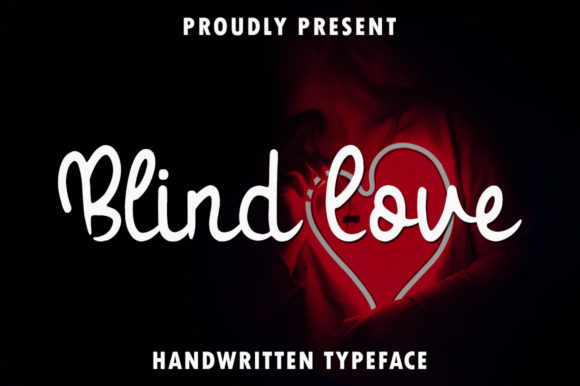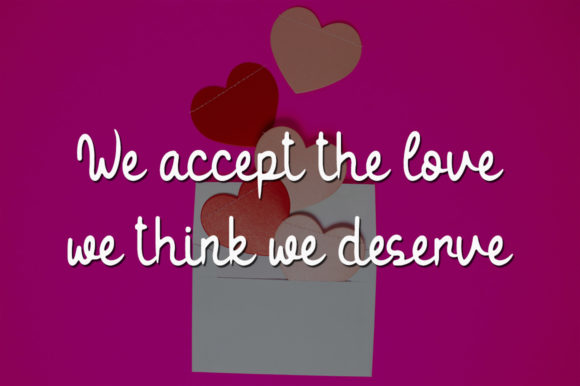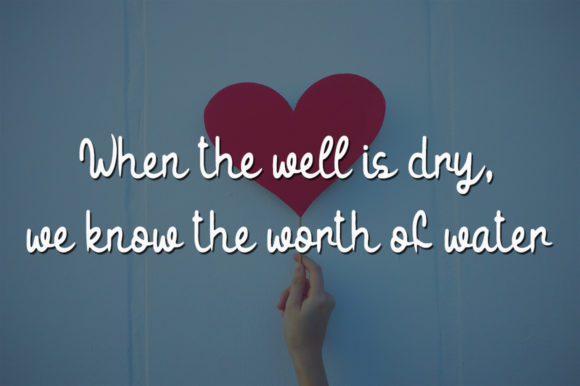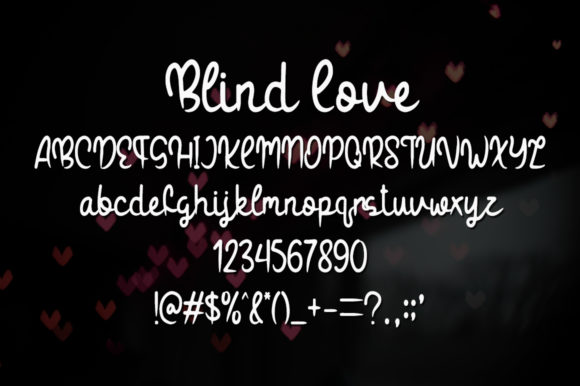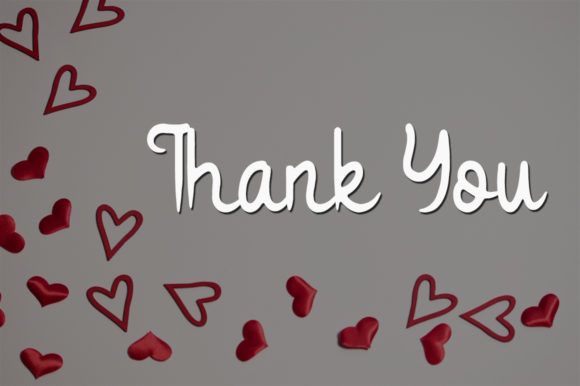
Blind Love Font
About Blind Love Font
Blind Love is a casual script font that brings a relaxed and effortless vibe to your designs. With its fluid and organic letterforms, this font is perfect for creating original and outstanding designs that stand out from the crowd.
The casual nature of Blind Love makes it a versatile choice for various design projects. Whether you’re working on branding, packaging, social media graphics, invitations, or any other creative endeavor, this font adds a touch of informality and approachability to your designs. It is particularly well-suited for projects that aim to evoke a sense of comfort, warmth, and authenticity.
The flowing and connected letterforms of Blind Love create a natural and hand-drawn appearance. Each character seamlessly connects to the next, giving the impression of effortless handwriting. This adds a sense of fluidity and rhythm to your text, making it visually appealing and engaging.
Blind Love allows you to infuse your designs with personality and character. It offers a range of alternate characters, ligatures, and swashes that you can easily access to add variation and flair to your text. These stylistic options enable you to create unique and customized designs that reflect your own artistic vision.
In addition to its aesthetic appeal, Blind Love is designed to be user-friendly and accessible. It is compatible with various design software and platforms, allowing you to easily incorporate it into your digital projects. The font is optimized for legibility, ensuring that your messages are clear and easy to read across different media.
Whether you’re aiming for a laid-back and casual look or a more playful and whimsical style, Blind Love provides the versatility and flexibility to achieve your desired design aesthetic. It encourages creativity and allows you to explore different typographic treatments and compositions.
In summary, Blind Love is a casual script font that adds a touch of originality and creativity to your designs. With its natural and hand-drawn appearance, this font brings a sense of informality and approachability to your projects. Use Blind Love to create outstanding and visually engaging designs that capture attention and leave a lasting impression.